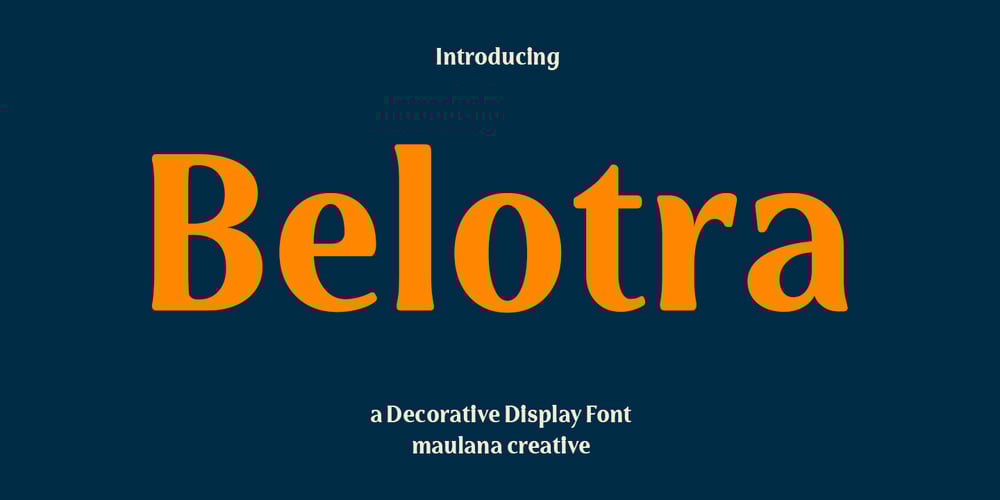
MC Belotra
MC Belotra font
MC Belotra Font Family was designed by Gilang Maulana and published by Maulana Creative. MC Belotra contains 1 styles and family package options. Belotra is a semi serif decorative display font. With medium low contrast stroke, fun character with a bit of ligatures and alternates. To give you an extra creative work. Belotra font support multilingual more than 100+ language. This font is good for logo design, Social media, Movie Titles, Books Titles, a short text even a long text letter and good for your secondary text font with script or serif. Make a stunning work with Belotra font. Cheers, Maulana Creative